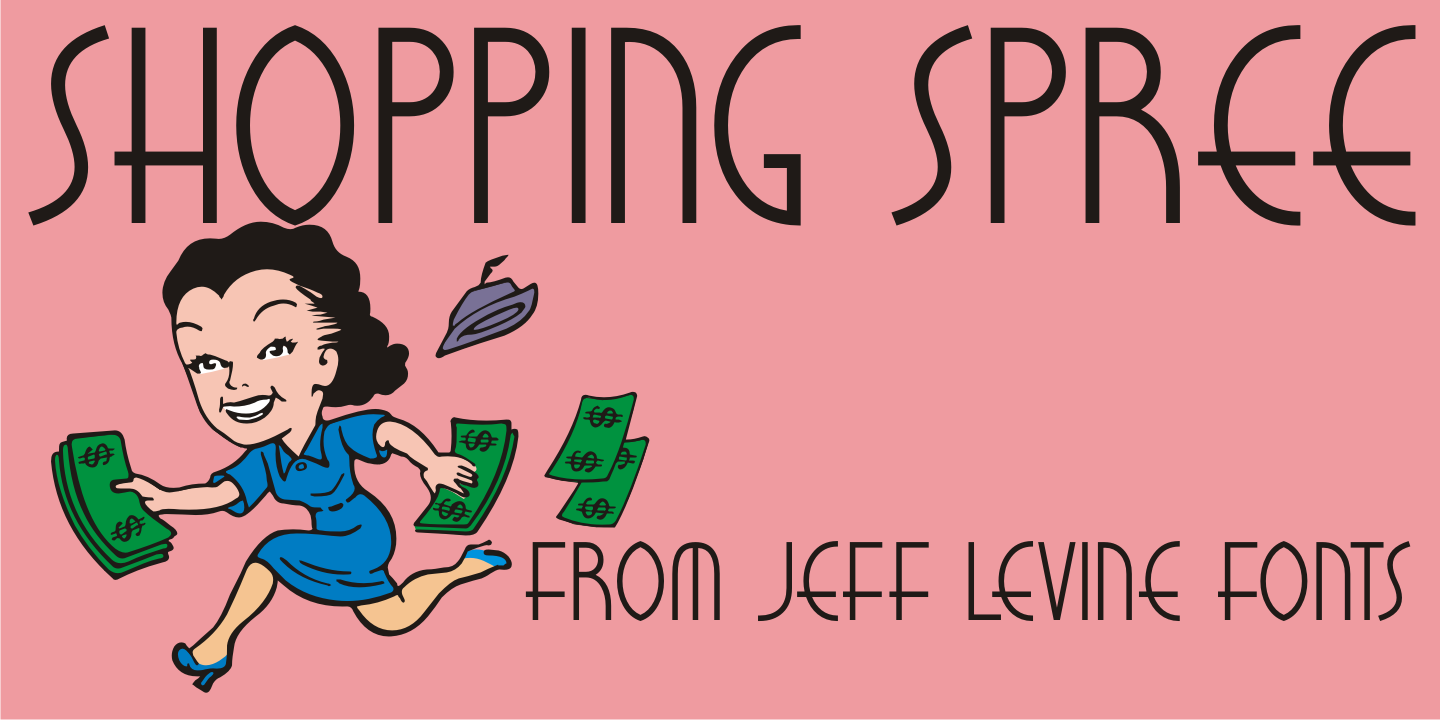
Shopping Spree JNL is a art deco font published by Jeff Levine Fonts.
Shopping Spree JNL was inspired by the hand lettering on the title card for the 1938 film “Fast Company” starring Melvyn Douglas and Florence Rice.